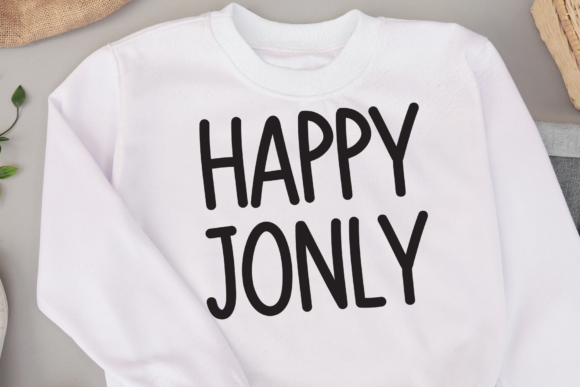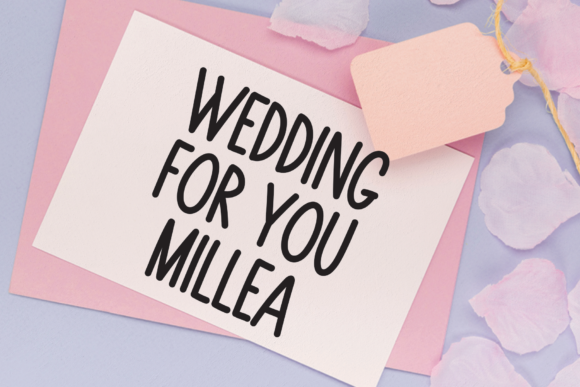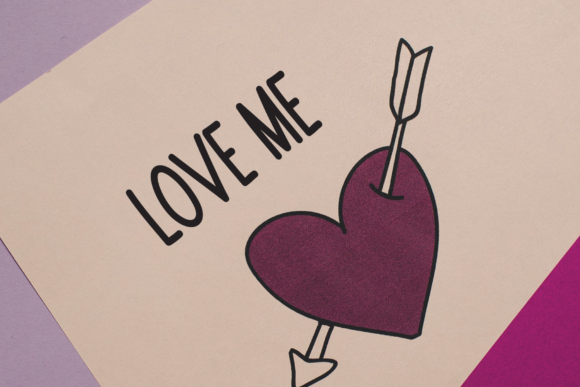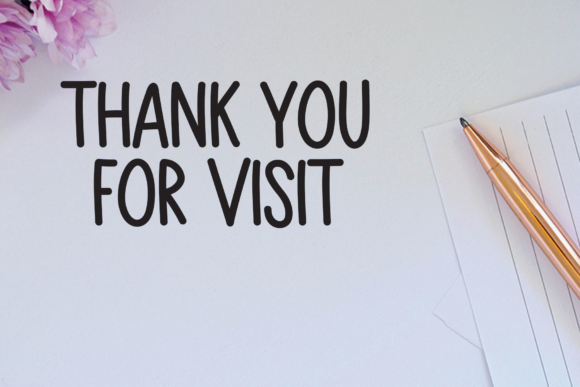
Introducing Christmas Memory Font: A Cute and Simple Lettered Handwritten Font for Your Holiday Designs
Are you looking for a font that can add a personal touch to your holiday designs? Look no further than the Christmas Memory Font! This adorable and simple lettered handwritten font is perfect for creating chalkboard quotes, teaching materials, and other holiday-themed designs that require a personal and realistic feel.
What is Christmas Memory Font?
Christmas Memory Font is a carefully crafted font that mimics the look of handwritten chalkboard writing. Its authentic and rustic appearance makes it an ideal choice for designers and crafters who want to add a touch of warmth and personality to their holiday designs. Whether you’re creating Christmas cards, holiday-themed posters, or social media graphics, this font is sure to make your designs stand out.
Key Features of Christmas Memory Font
- Cute and Simple Design: Christmas Memory Font features a cute and simple design that is easy to read and looks great in a variety of contexts.
- Handwritten Style: The font’s handwritten style gives it a personal and realistic feel that’s perfect for holiday designs.
- Chalkboard Look: The font’s chalkboard-inspired design makes it ideal for creating chalkboard quotes, posters, and other holiday-themed designs.
Uses for Christmas Memory Font
Christmas Memory Font is a versatile font that can be used in a variety of contexts. Here are some ideas for using this font in your holiday designs:
- Christmas Cards: Use Christmas Memory Font to create personalized and festive Christmas cards for your loved ones.
- Holiday Posters: Create eye-catching holiday posters using Christmas Memory Font and add a touch of personality to your designs.
- Social Media Graphics: Use Christmas Memory Font to create festive social media graphics that will help you stand out during the holiday season.
- Chalkboard Quotes: Create beautiful chalkboard quotes using Christmas Memory Font and add a touch of elegance to your designs.
- Teaching Materials: Use Christmas Memory Font to create engaging and educational teaching materials for your students.
Christmas Memory Font is a cute and simple lettered handwritten font that’s perfect for adding a personal touch to your holiday designs. Its authentic look and feel make it an ideal choice for designers and crafters who want to create beautiful and engaging holiday-themed designs. Whether you’re creating Christmas cards, holiday posters, or social media graphics, Christmas Memory Font is sure to make your designs stand out.